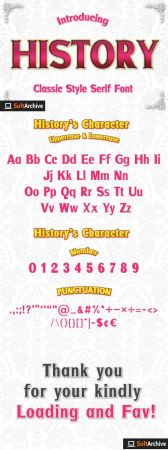
DesignOptimal - History Font
DesignOptimal.com - History Font
History feels playfully nostalgic and delivers an incredible vintage aesthetic. Use this serif font to add that special retro touch to any design idea you can think of!